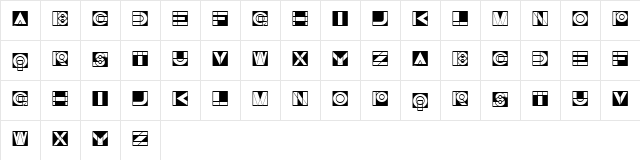
Success Abstract Regular
Design Context for Success Abstract Typeface
Success Abstract is a composed and adaptable typeface that performs quietly and consistently across a wide range of design contexts.